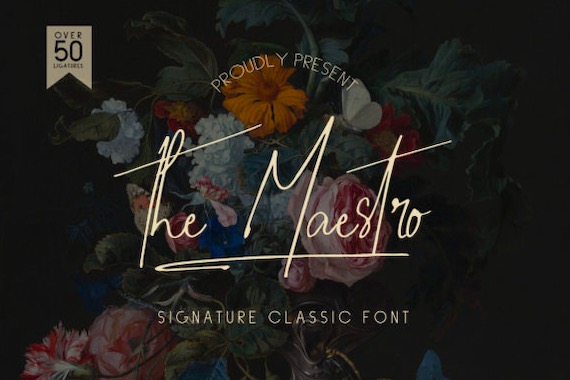
The Maestro Font is known as a modern handwritten script font that was created carefully and shared by Graphiqa. This is a magical signature font along with a touch of elegance and natural strokes. Whether you’re looking for fonts for Instagram or calligraphy scripts for DIY projects, this font will turn any creative idea into a true piece of art!
The Maestro Handwritten Font
Font family: The Maestro Font
Full font name: The Maestro Font